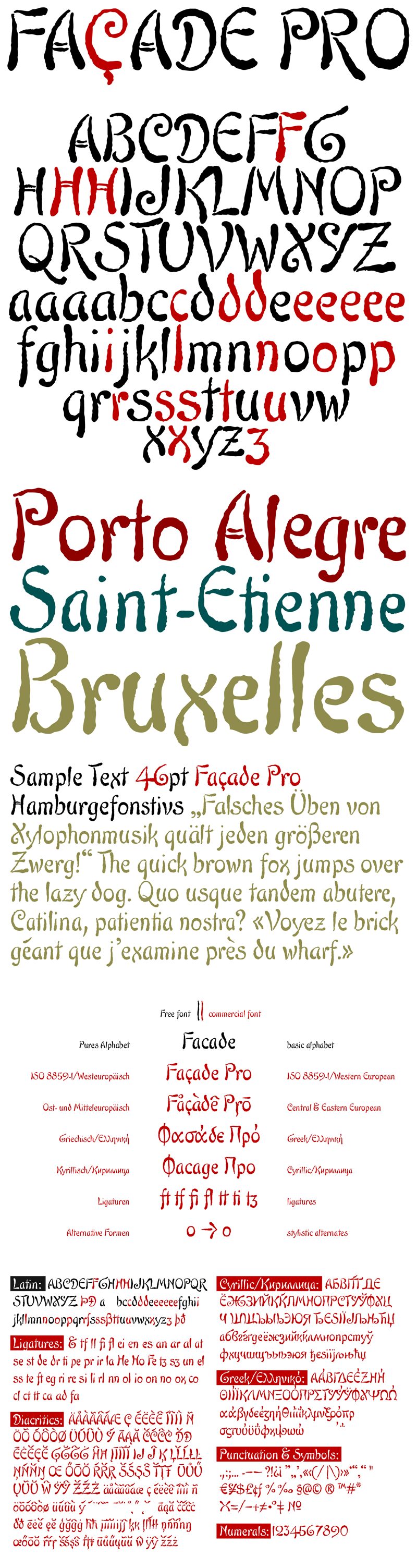
Are you looking for a unique font that stands out from the crowd? Look no further than Facade Pro Reduced by ingoFonts. This display font features a curly, handwritten touch that is perfect for adding a playful yet sophisticated feel to your designs. Suitable for a wide range of projects, Facade Pro Reduced is particularly well-suited to branding materials, invitations, and social media graphics. With its reduced width, it's also an ideal choice for headlines and titles where space is at a premium. Give your designs the attention they deserve with Facade Pro Reduced.
A handwritten decorative font with brush characteristics
An attractive decorative script found in a pamphlet of script samples from around 1900
which was issued by Otto Maier publishing house in Ravensburg. The pamphlet is entitled "Schriften-Sammlung fr Techniker: Verkleinerte Schriften der wichtigsten Alphabete" (Collection of scripts for technical specialists: reduced scripts of the most significant alphabets), published by Karl O. Maier.
The forms and flow of Faade Pro are obviously influenced by Art Nouveau.
In the original sample from Karl O. Maier, only the Latin alphabet appears. All other characters, especially the Greek and Cyrillic letters, were modeled on elements of the original.
A typeface can first reveal a true "handmade" character when the letter forms do not continually repeat themselves - a completely normal occurrence with handwriting.
Thanks to OpenType-Technology, some key letters of Faade Pro appear in various alternative forms depending on the combination of letters. For example, the difference is obvious between an e followed by i and an e followed by l. Using this principle, a number of letter combinations are presented with alternative character forms so that overall a very lively impression is created.